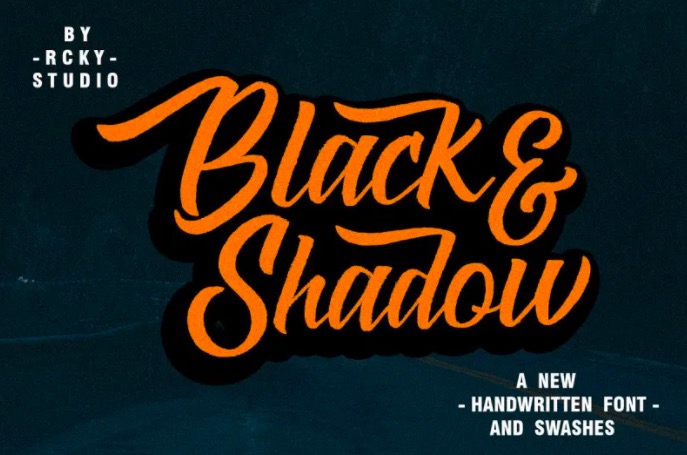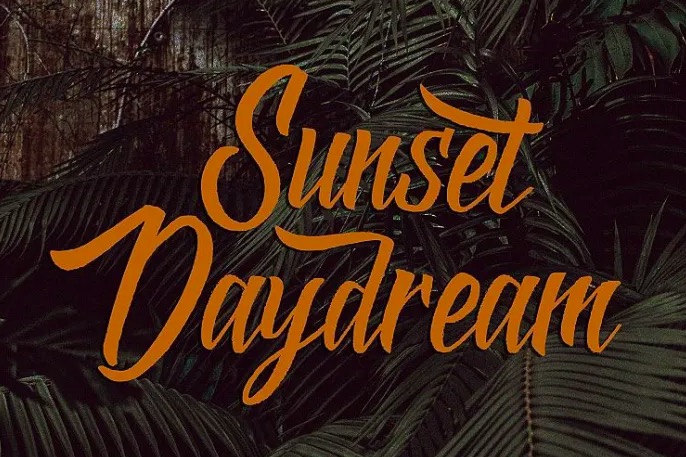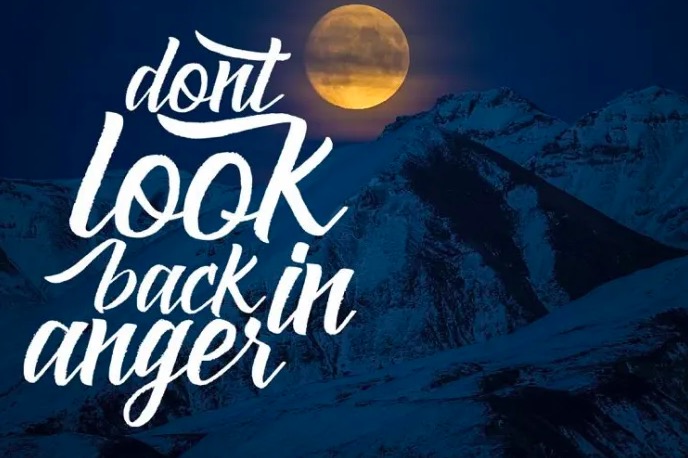
Black & Shadow font is a new elegant handwritten Script font, it was designed by Rckystudio. And this Script font has a contemporary approach to every design. Black & Shadow font consists of a full set of uppercase & lowercase, along with punctuation, ligatures, etc. And multilingual support.
Black & Shadow Script font